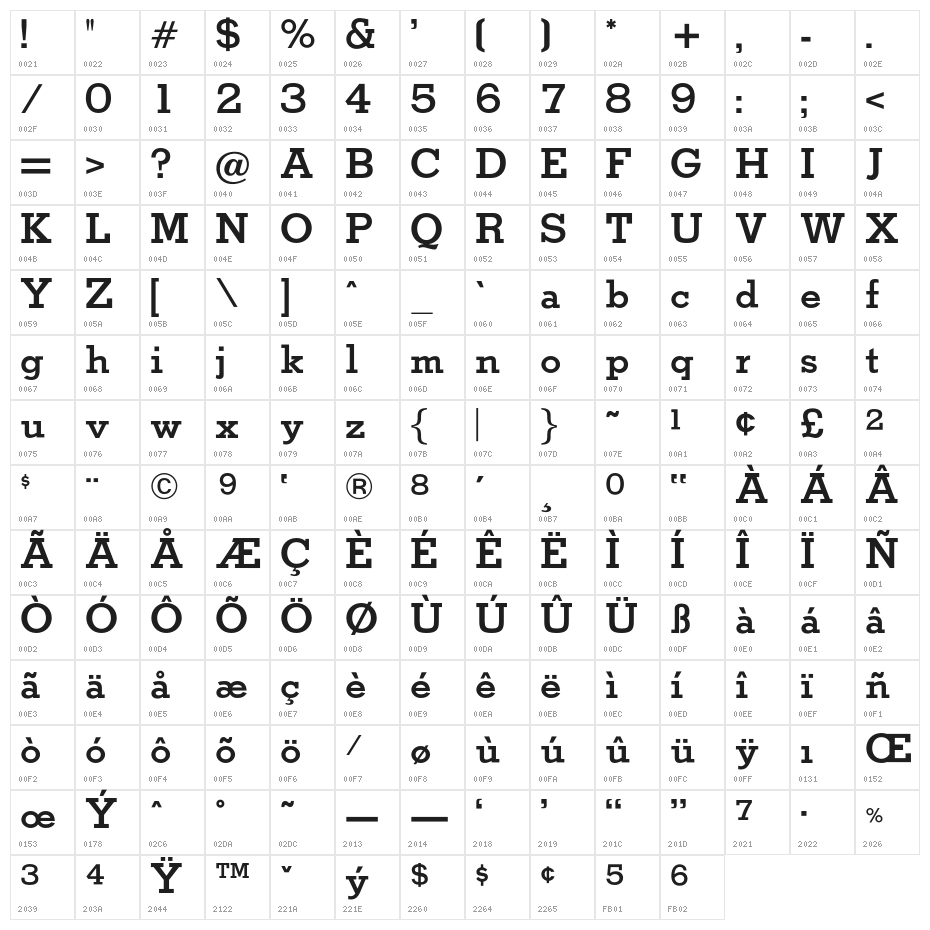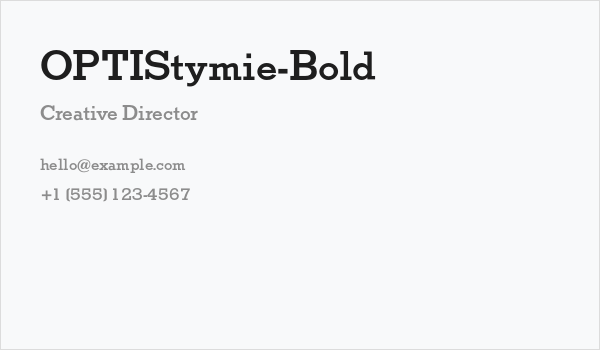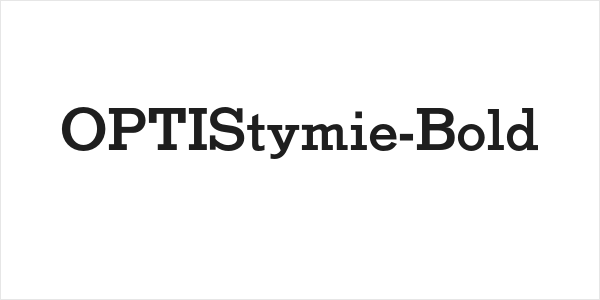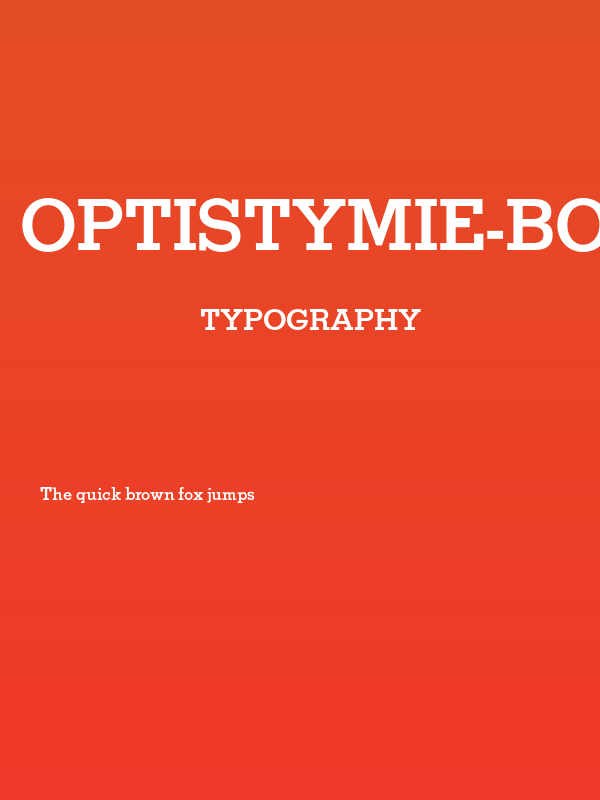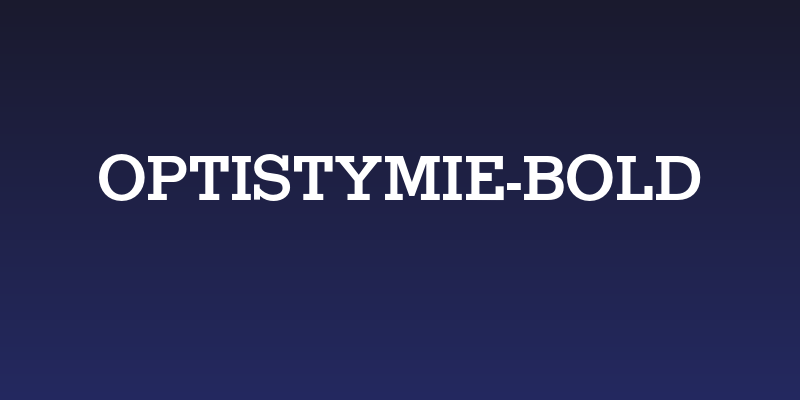
OPTIStymie-Bold Font
OPTIStymie-Bold Description
This font features a bold and robust design with strong serifs and a classic appearance. The uppercase letters are uniformly tall and commanding, while the lowercase letters maintain a consistent height with slightly rounded edges, adding a touch of softness to the overall boldness. The numerals are clear and easily distinguishable, making them suitable for various applications. Special characters are well-defined, ensuring readability and versatility. The font's bold weight and traditional serif style make it ideal for projects that require a strong, authoritative presence.
| Proposed Projects | Ideal for book covers, headlines, posters, and branding materials that require a strong, authoritative look. |